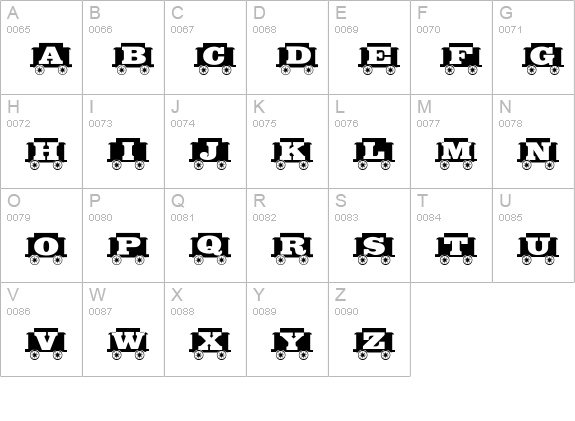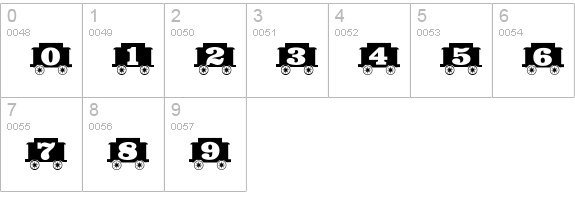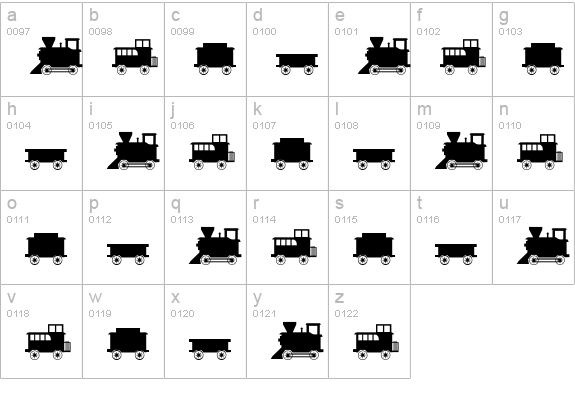
GrandFunkRR is a bold and dynamic font that exudes a sense of strength and modernity. With its clean lines and distinctive letterforms, this font is perfect for making a statement in your designs. The unique character shapes and sharp angles of GrandFunkRR give it a contemporary edge that is sure to catch the eye. What sets GrandFunkRR apart is not only its striking design but also its accessibility. This font is available for free download at FontsMarket.com, making it a valuable addition to any designer's toolkit. Whether you're working on branding, posters, or web design, GrandFunkRR offers versatility and style that will elevate your projects to the next level. Embrace the boldness of GrandFunkRR and make a lasting impression with this innovative and freely available font. Download it today and unleash your creativity with this powerful and expressive typeface.